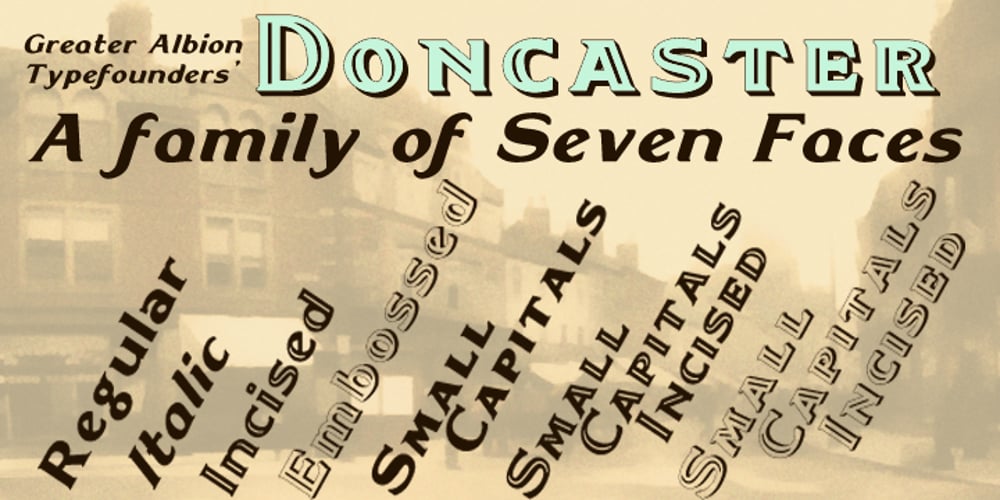
Doncaster Font Family was designed by Paul James Lloyd and published by Greater Albion Typefounders. Doncaster contains 7 styles and family package options. Doncaster is a bold display face which emphasises legibility and clarity. The seven typefaces have a timeless quality, making them equally at home today or even in Victorian inspired design work. All of the faces are ideal for poster work, signage or for really eye-catching but not ostentatious headings and titles.